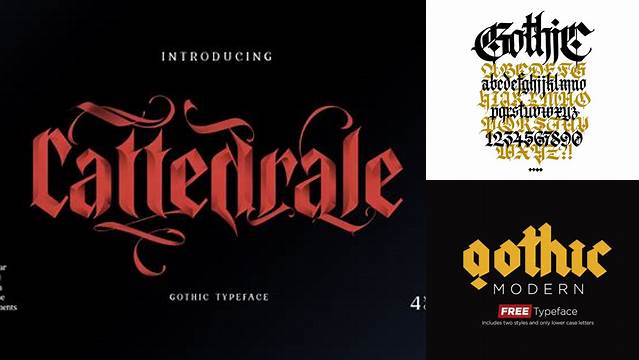
Free Modern Gothic Fonts: Download Now
Gothic fonts, also known as blackletter fonts, have a rich history and distinctive aesthetic. They evoke a sense of history, mystery, and elegance. Modern gothic fonts, however, offer a contemporary twist on this classic style, blending traditional elements with a fresh, modern feel. If you're looking for modern gothic fonts free download, you've come to the right place! This article will explore the world of modern gothic fonts, where to find them, and how to use them in your projects. So, let’s dive in and discover the perfect font to give your designs that unique gothic flair.
Exploring the World of Modern Gothic Typefaces
Modern gothic typefaces are a fantastic way to infuse your designs with a sense of history and sophistication, while still maintaining a contemporary edge. These fonts often feature sharp angles, dramatic strokes, and a bold presence that commands attention. But what exactly makes a font “modern gothic,” and why are they so popular? Let's delve into the characteristics and appeal of these typefaces.
Understanding the Characteristics of Modern Gothic Fonts
Modern gothic fonts are characterized by their blend of traditional gothic elements with contemporary design sensibilities. This means you'll often see the classic blackletter characteristics, such as sharp serifs, high contrast between thick and thin strokes, and a generally ornate appearance, but with a cleaner, more streamlined execution. Think of it as gothic, but make it modern! This makes them versatile for a variety of applications, from branding to editorial design.
The Appeal of Gothic Fonts in Contemporary Design
Guys, the appeal of gothic fonts in contemporary design is undeniable. They bring a certain gravitas and elegance that can't be easily replicated. In a world of sans-serif uniformity, a well-chosen gothic font can make your project stand out. Plus, the historical associations with gothic script can add depth and meaning to your design, perfect for projects that want to convey a sense of heritage or timelessness.
Where to Find Free Modern Gothic Fonts
Finding modern gothic fonts free download can feel like searching for a hidden treasure. But don't worry, we've got you covered! There are several excellent resources online where you can find high-quality gothic fonts without spending a dime. It's all about knowing where to look and what to look for.
Top Websites for Free Gothic Font Downloads
Tips for Identifying High-Quality Free Fonts
Not all free fonts are created equal. To ensure you're getting a high-quality font, look for clean lines, consistent spacing, and a complete character set (including punctuation and numerals). Test the font in different sizes to check for legibility issues. Reading reviews and checking the font designer's other work can also give you a good sense of the font's quality. You don't want a font that looks great at first glance but falls apart when you actually use it.
Utilizing Modern Gothic Fonts in Your Projects
Now that you've found your modern gothic fonts free download, it's time to put them to work! But how can you best utilize these fonts in your projects? They're not just for spooky Halloween posters; gothic fonts can be incredibly versatile when used thoughtfully. Let’s explore some creative ways to incorporate them into your designs.
Designing Logos and Branding with Gothic Fonts
Gothic fonts can add a touch of elegance and sophistication to logos and branding materials. They work particularly well for businesses that want to convey a sense of tradition, luxury, or mystery. Think wineries, breweries, historical societies, or even high-end fashion brands. The key is to use them sparingly and pair them with simpler fonts for body text to maintain readability. A gothic font can be the perfect way to make a logo stand out from the crowd.
Creating Eye-Catching Headlines and Titles
For headlines and titles, gothic fonts can be incredibly effective. Their bold and dramatic nature commands attention, making them perfect for grabbing the reader's eye. Just remember to keep the text relatively short, as gothic fonts can be harder to read in large blocks. Think of movie posters, book covers, or magazine headlines where you want to make a strong visual impact.
Pairing Gothic Fonts with Other Typefaces
Gothic fonts often work best when paired with simpler typefaces. A classic pairing is a gothic font for headlines with a clean sans-serif or serif font for body text. This creates a visual contrast that's both striking and easy to read. Experiment with different combinations to find what works best for your project. You might try pairing a modern gothic with a geometric sans-serif for a contemporary feel, or a traditional serif for a more classic look.
Conclusion: Embrace the Elegance of Modern Gothic Fonts
So there you have it, guys! A deep dive into the world of modern gothic fonts free download. These fonts offer a fantastic way to add a touch of history, elegance, and drama to your designs. Whether you’re working on a logo, a poster, or a website, the right gothic font can make all the difference. So go ahead, explore the resources we’ve shared, experiment with different styles, and embrace the timeless appeal of modern gothic typography. Happy designing!